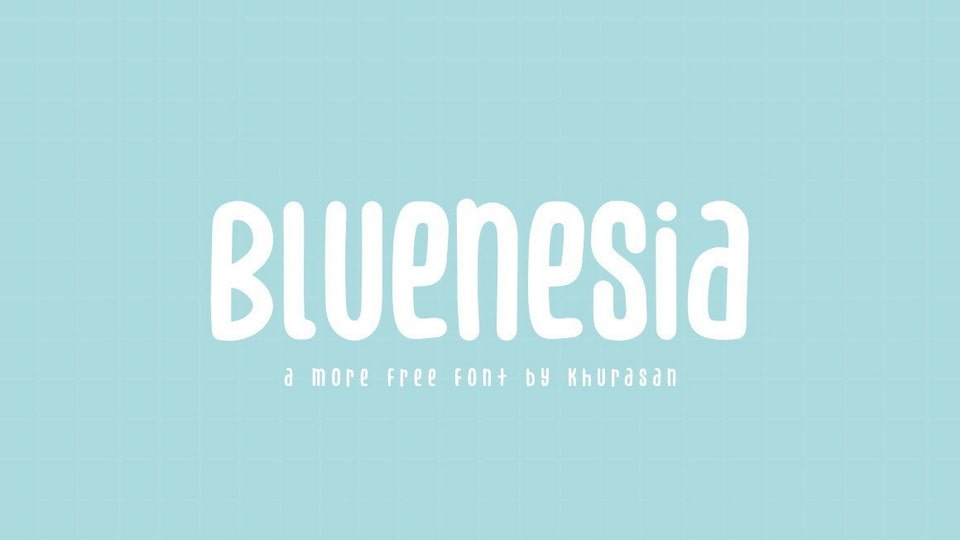
Download Bluenesia font, a funny and playful handwritten typeface. Bluenesia font is perfect for posters, logos, magazines, book covers, banners, and many more.